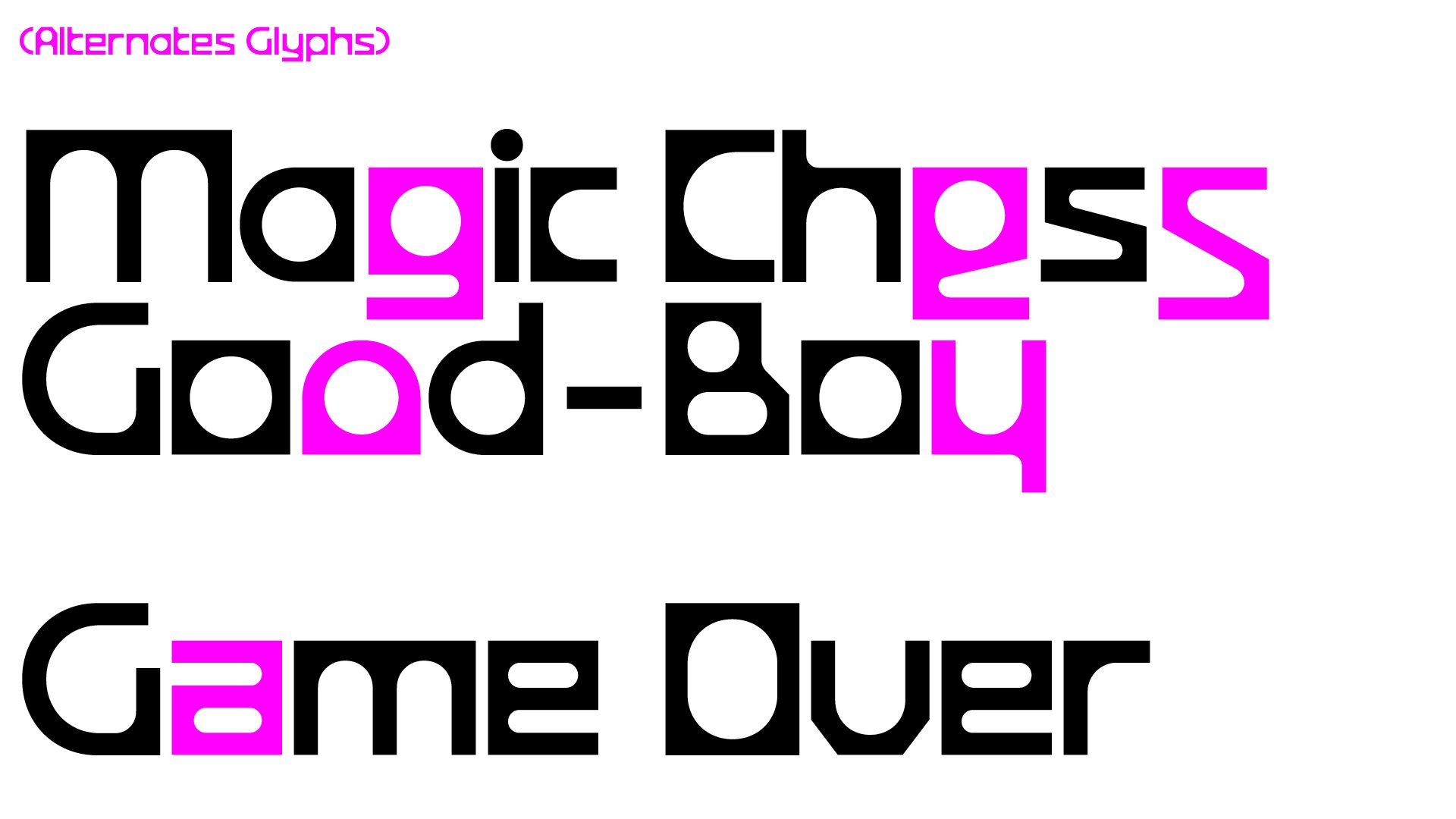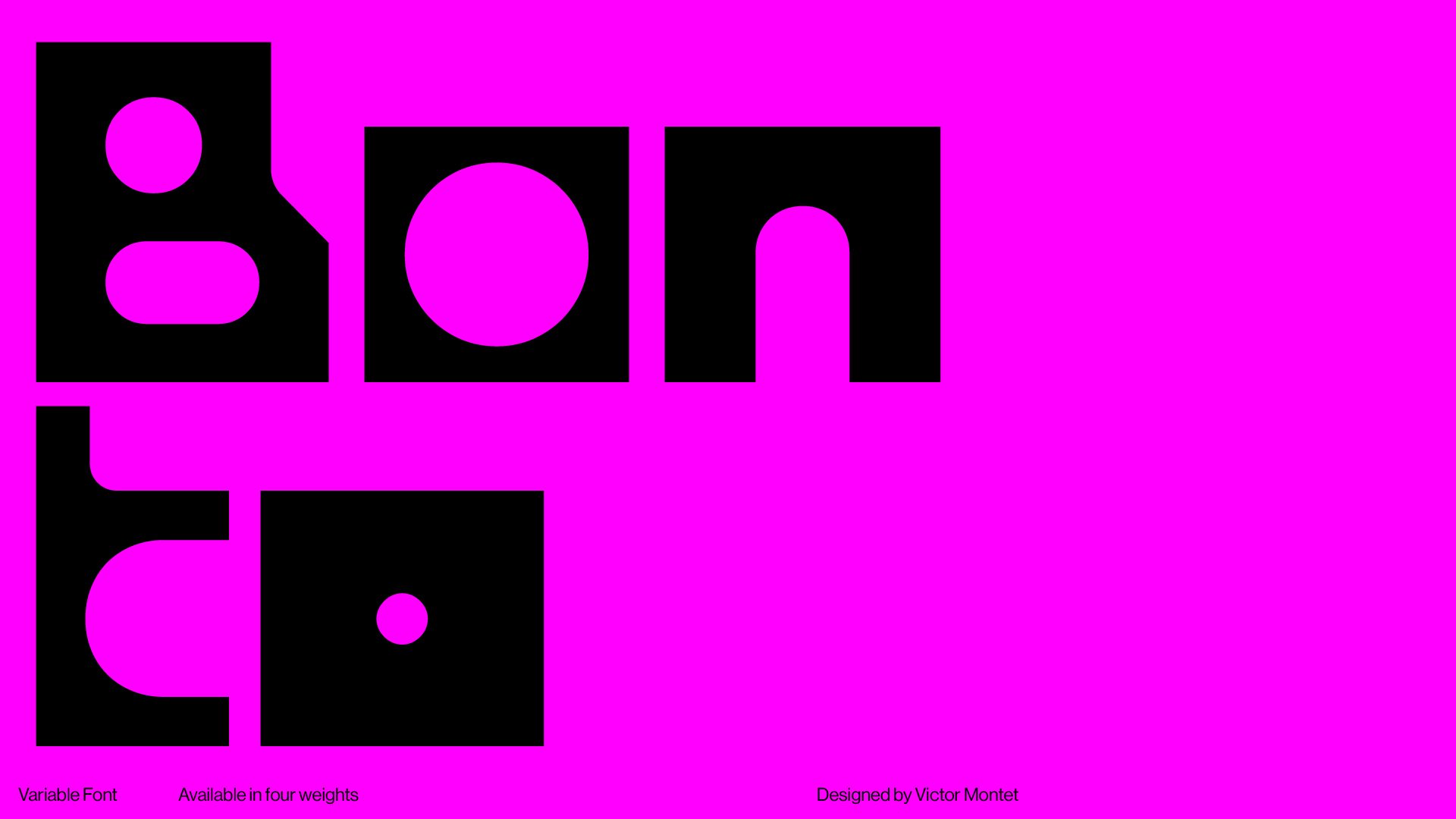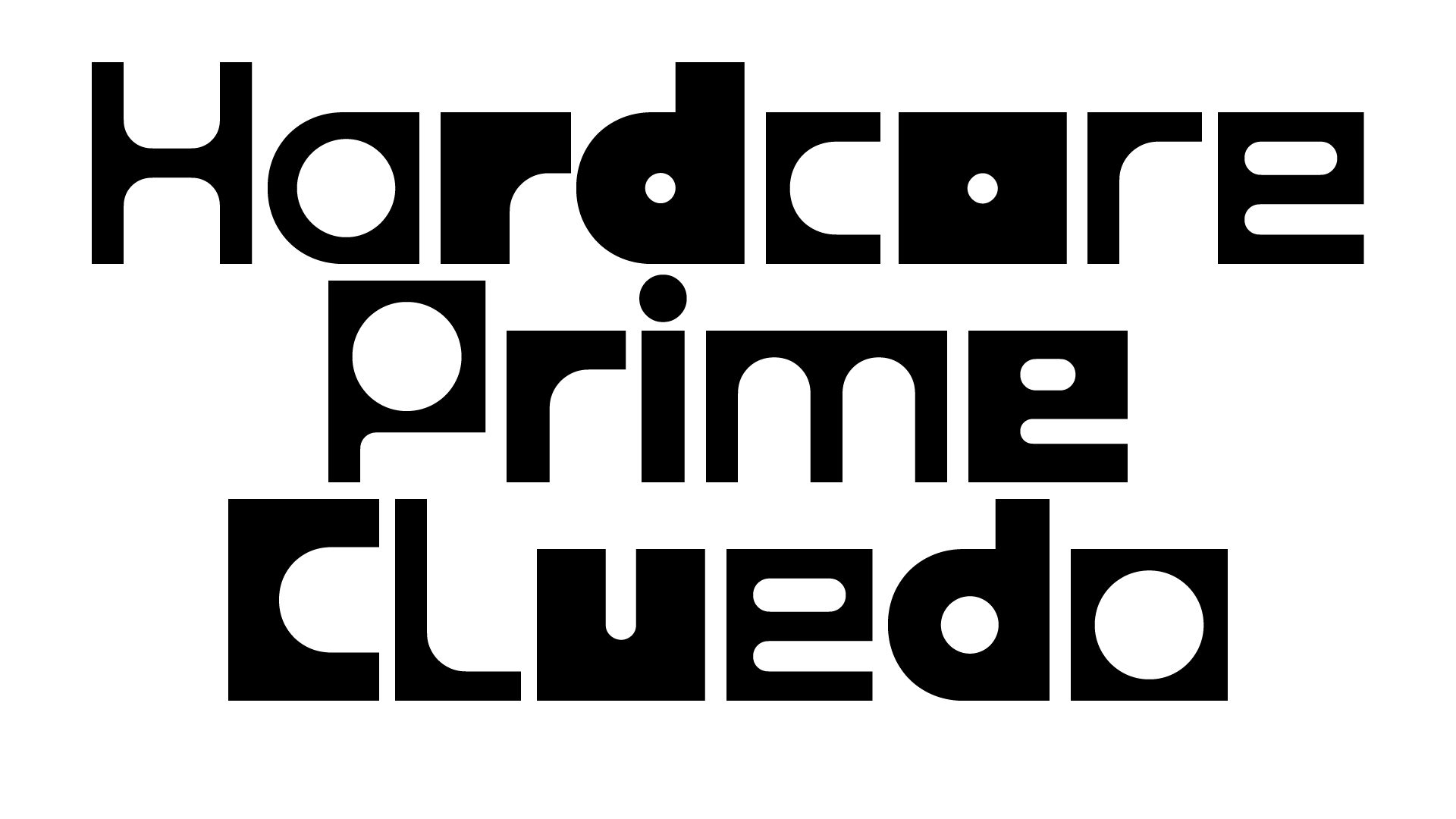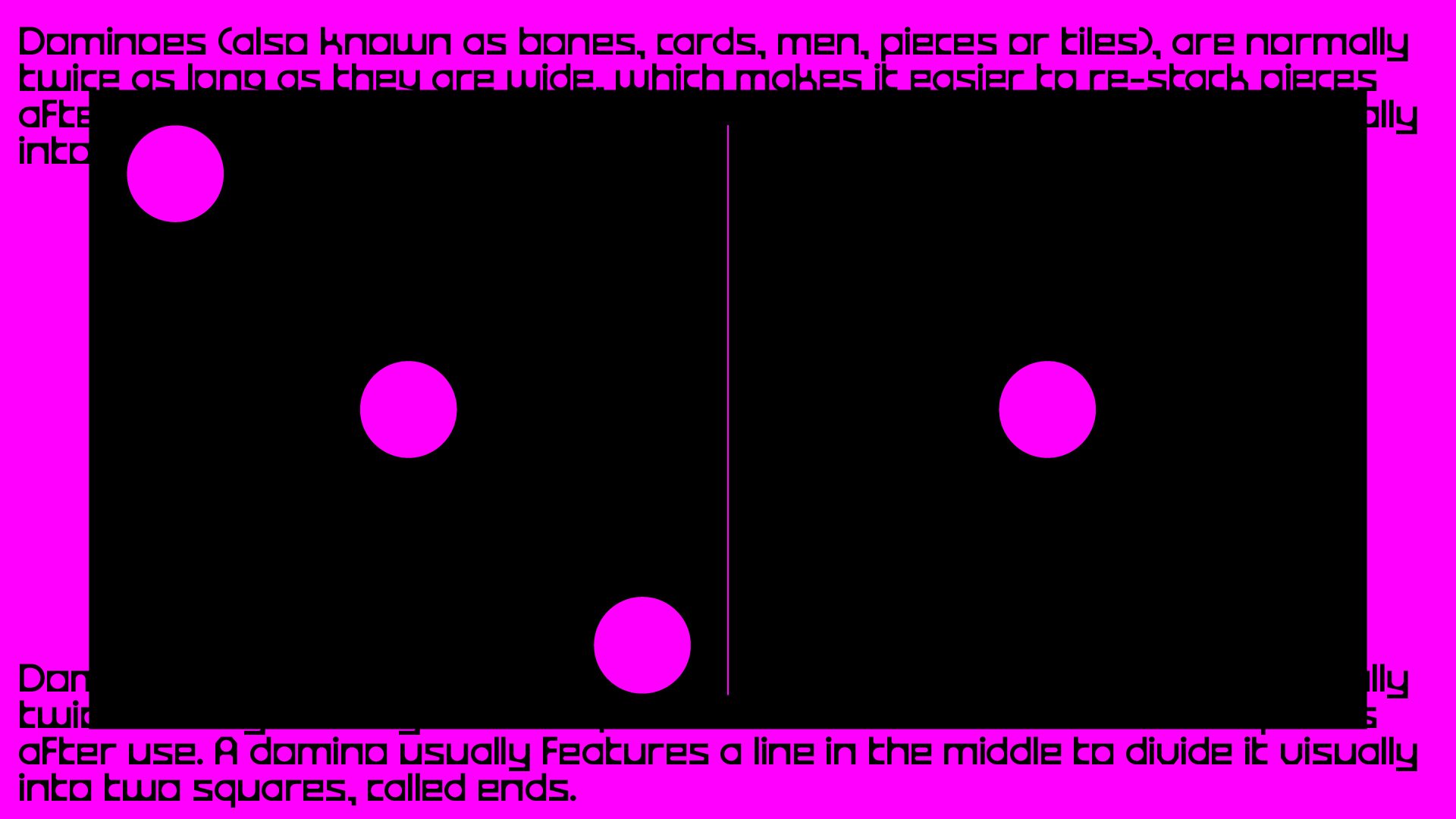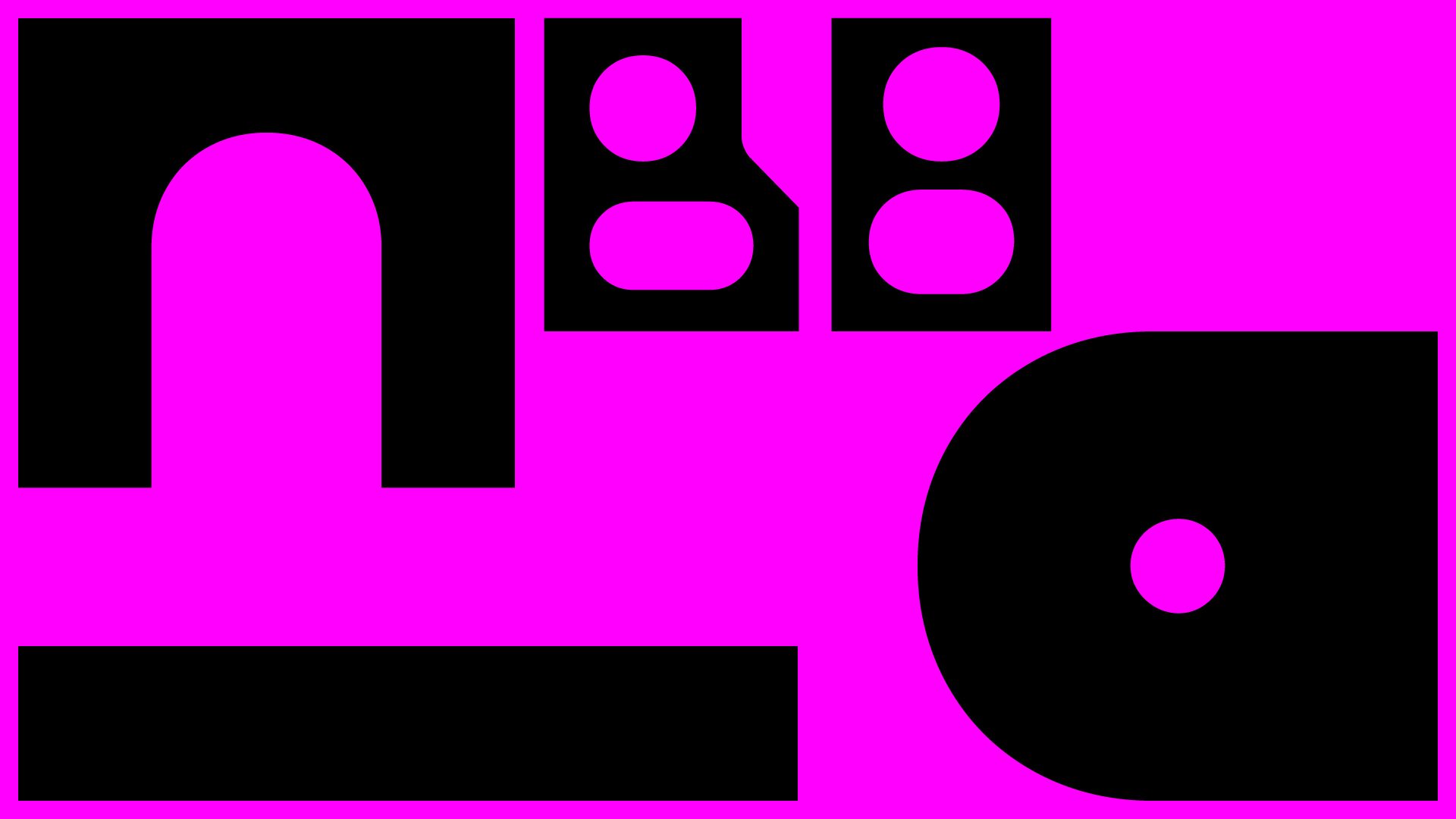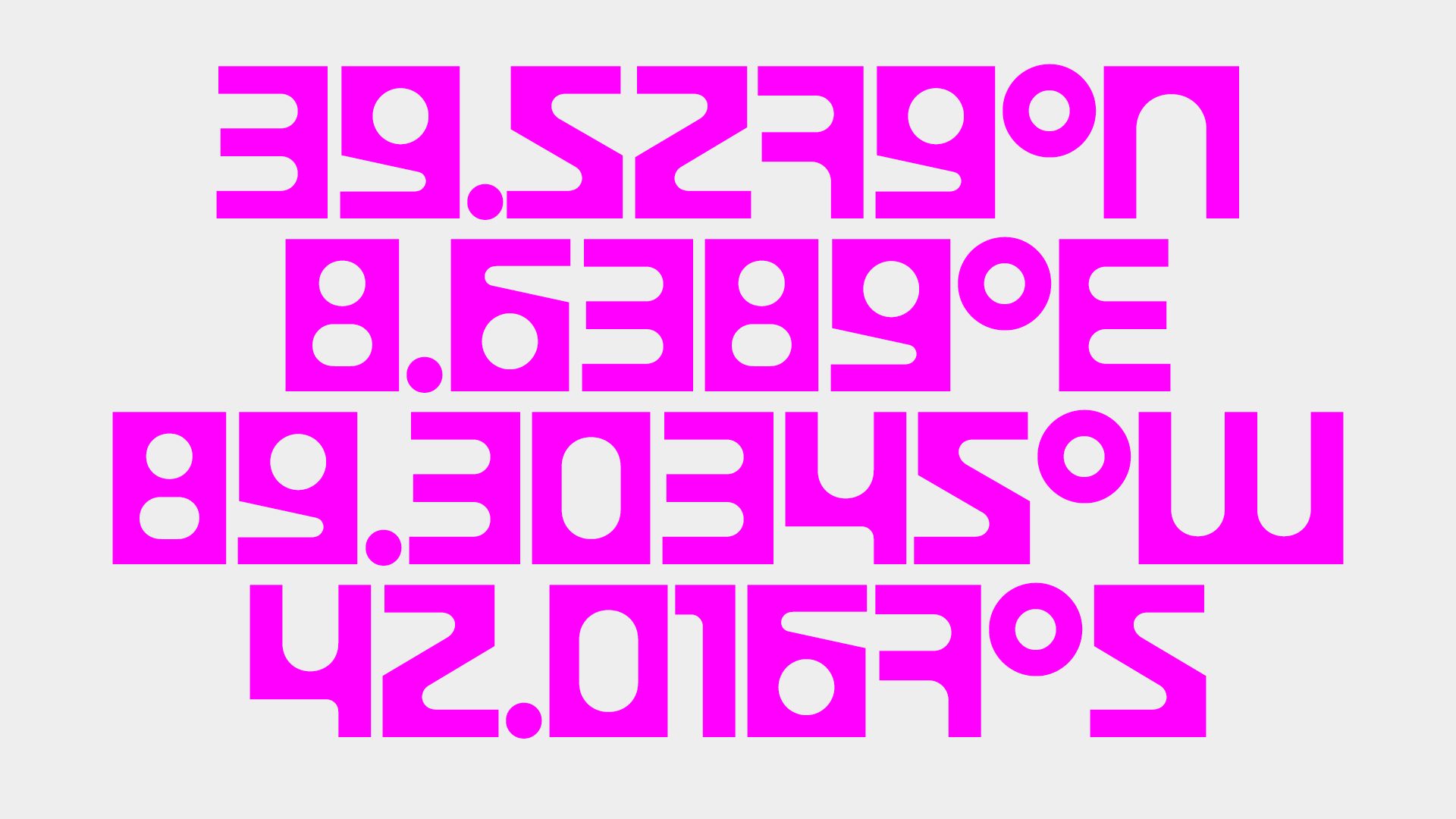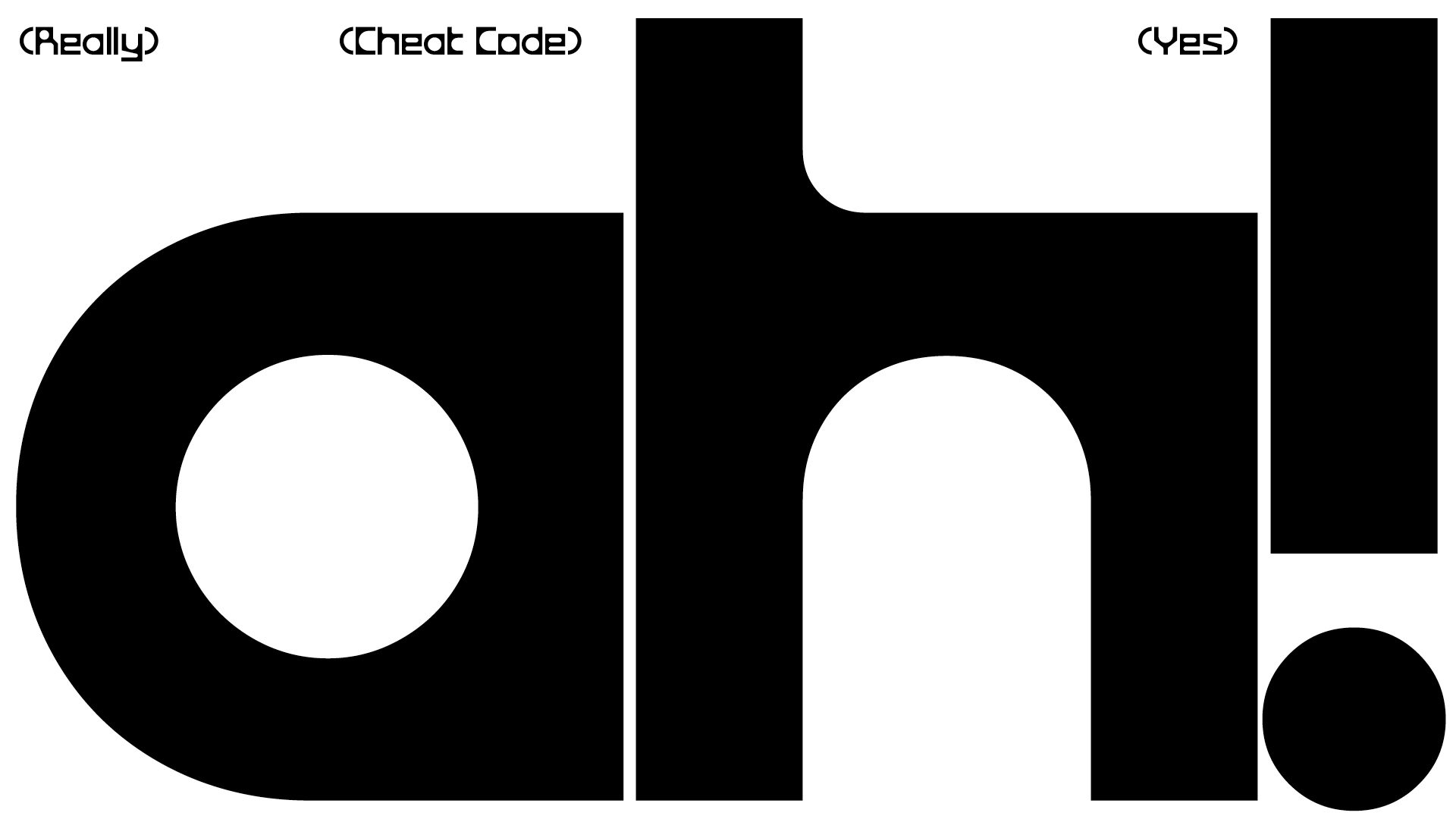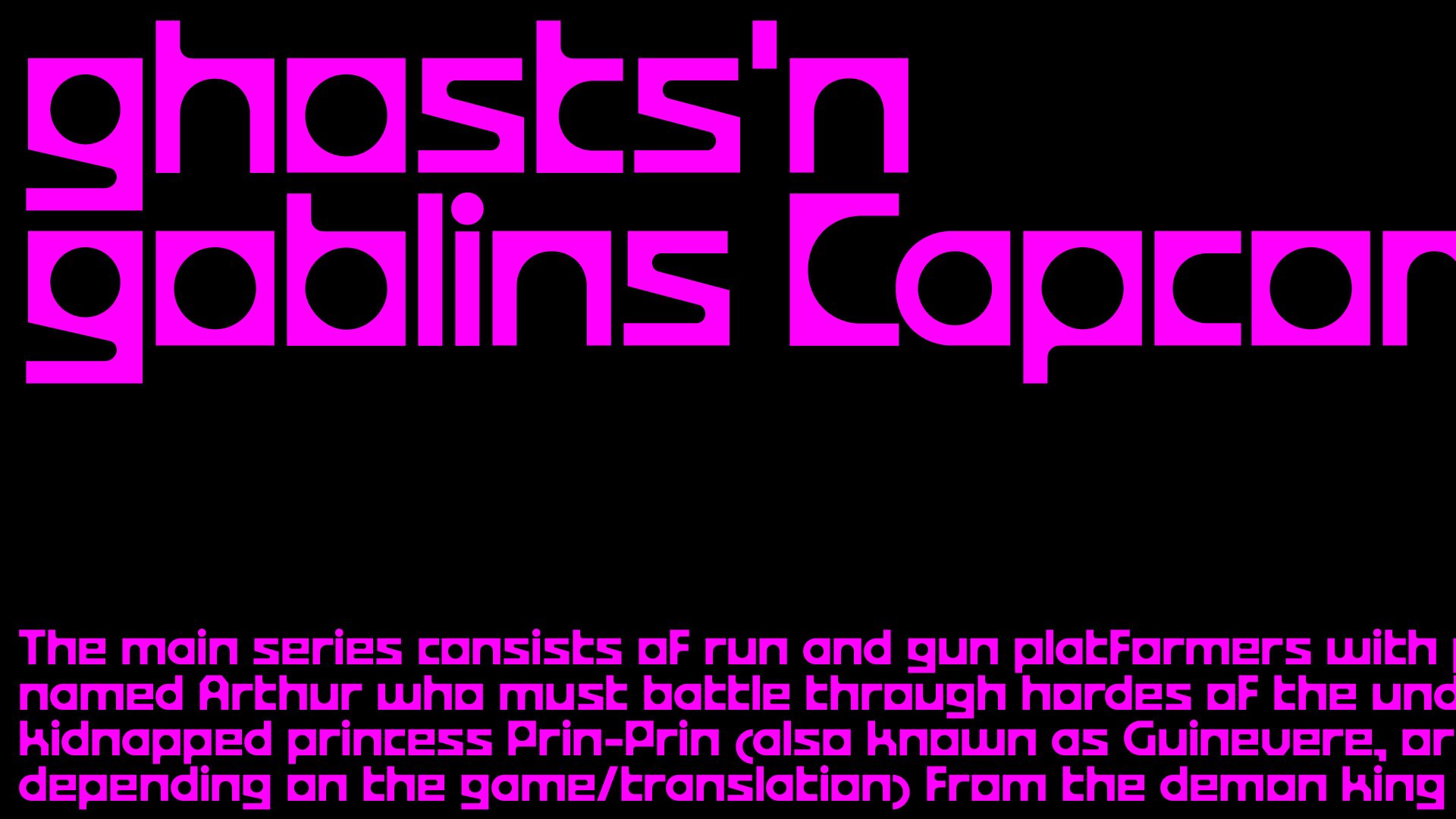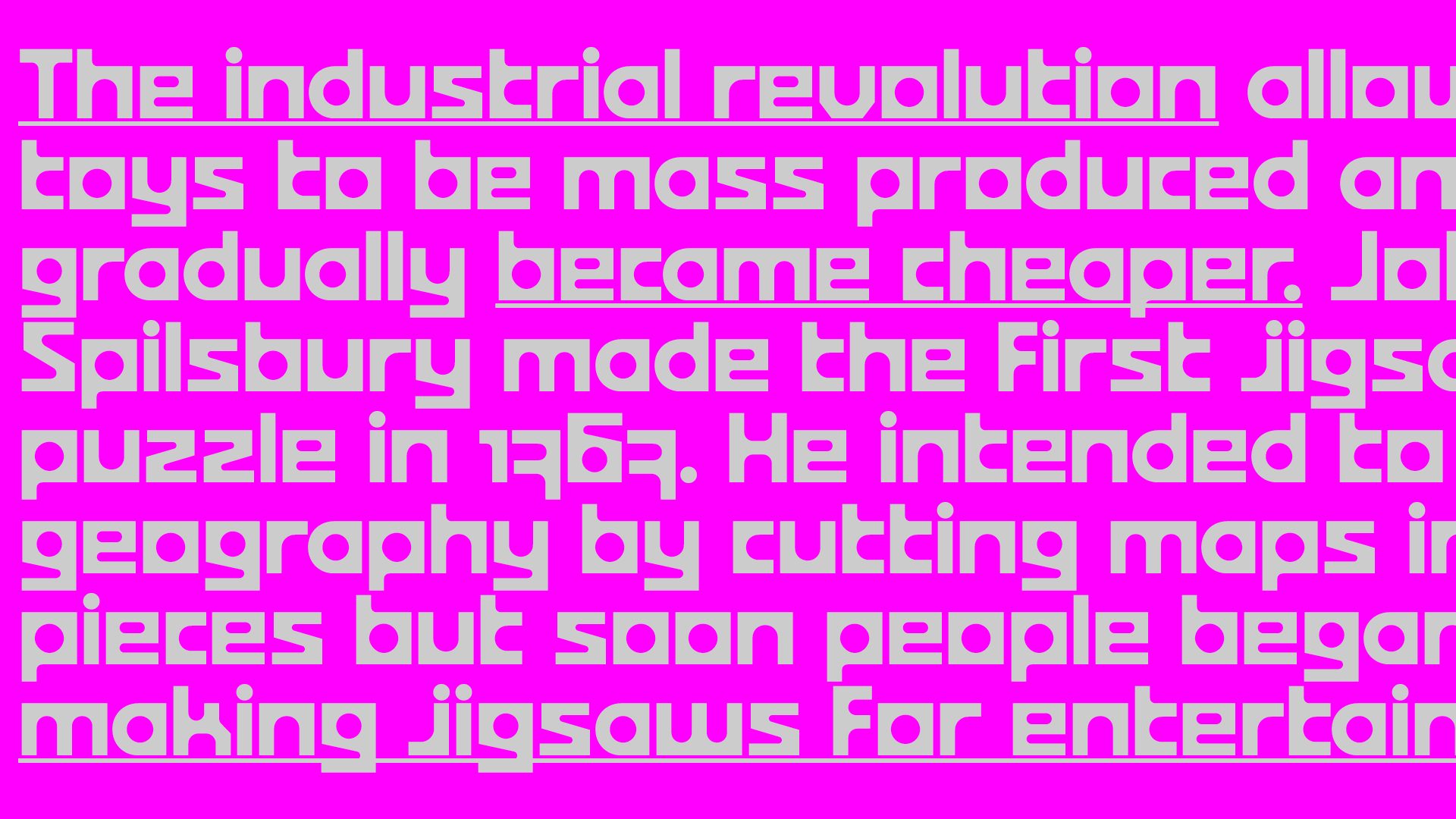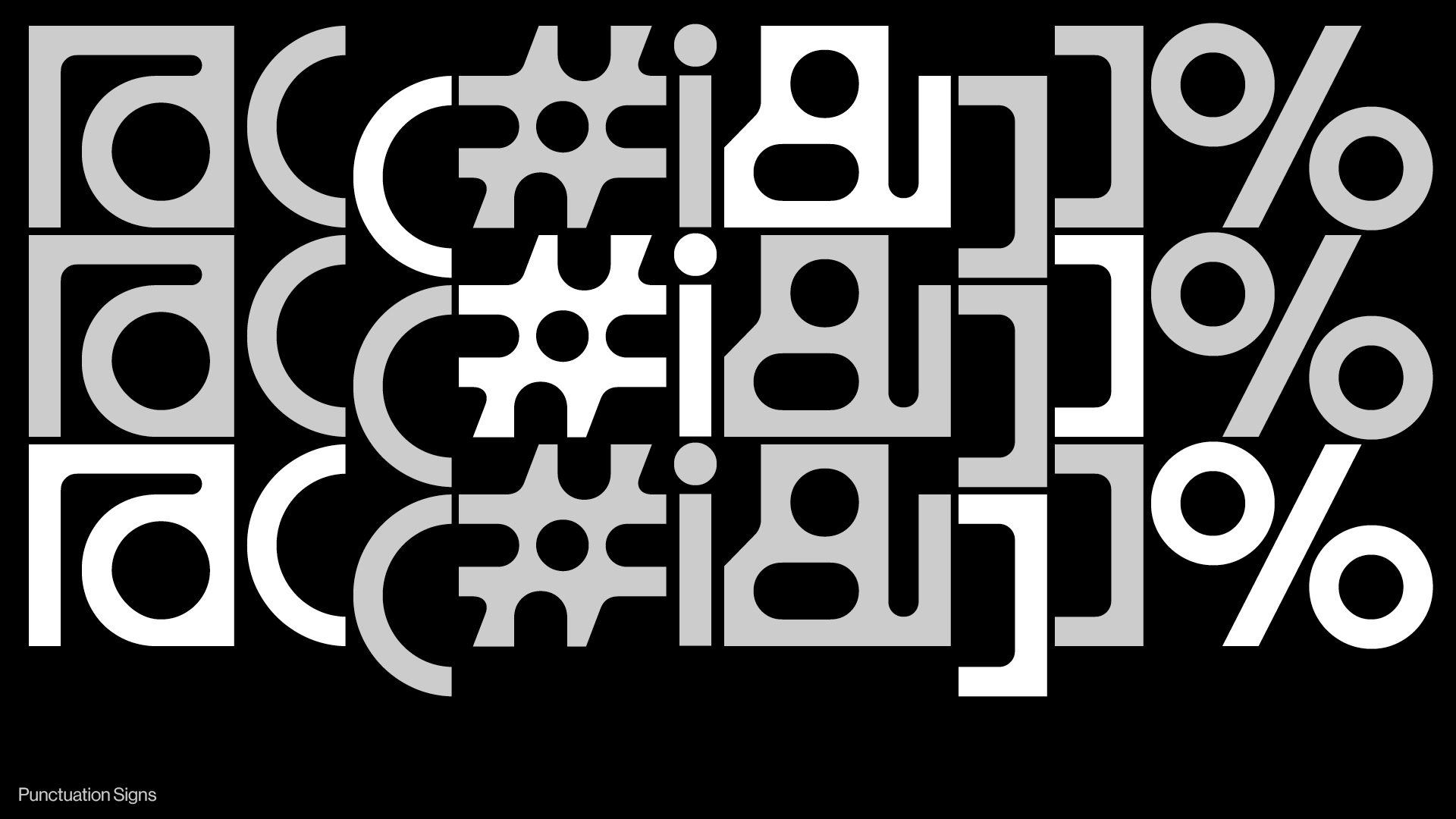
Bonto
Built from a simple geometric formal repertoire, Bonto is an expressive display typeface that comes in four styles. Directly inspired by our childhood games, the idea of this typeface was to create the most expressive typeface with the most simple shapes. Like lego or puzzle games, the letters come together in a contrasting combination of right angles and roundness. Bonto is designed to encourage play and experimentation through typographic composition. Several alternative glyphs can help the designer find the right combination. The alternative glyphs "e", "s" and "z" behave like descenders passing under the baseline, allowing for variations in the reading rhythm. In its black style, Bonto can be similar to a domino game, while the regular brings out the contrast of the round counter-forms. Bonto is best used large and playful, perfect for creating impactful and user-friendly designs
Victor Montet
Bonto